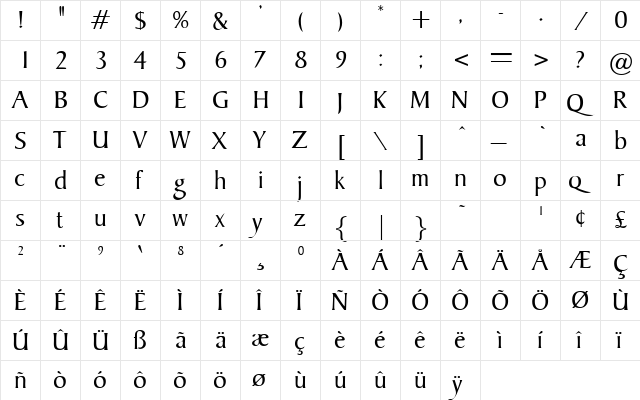
Keeple Regular
Design Context for Keeple Typeface
Keeple takes a measured approach to typography — its balanced proportions and neutral character make it a reliable workhorse for both digital and print work.